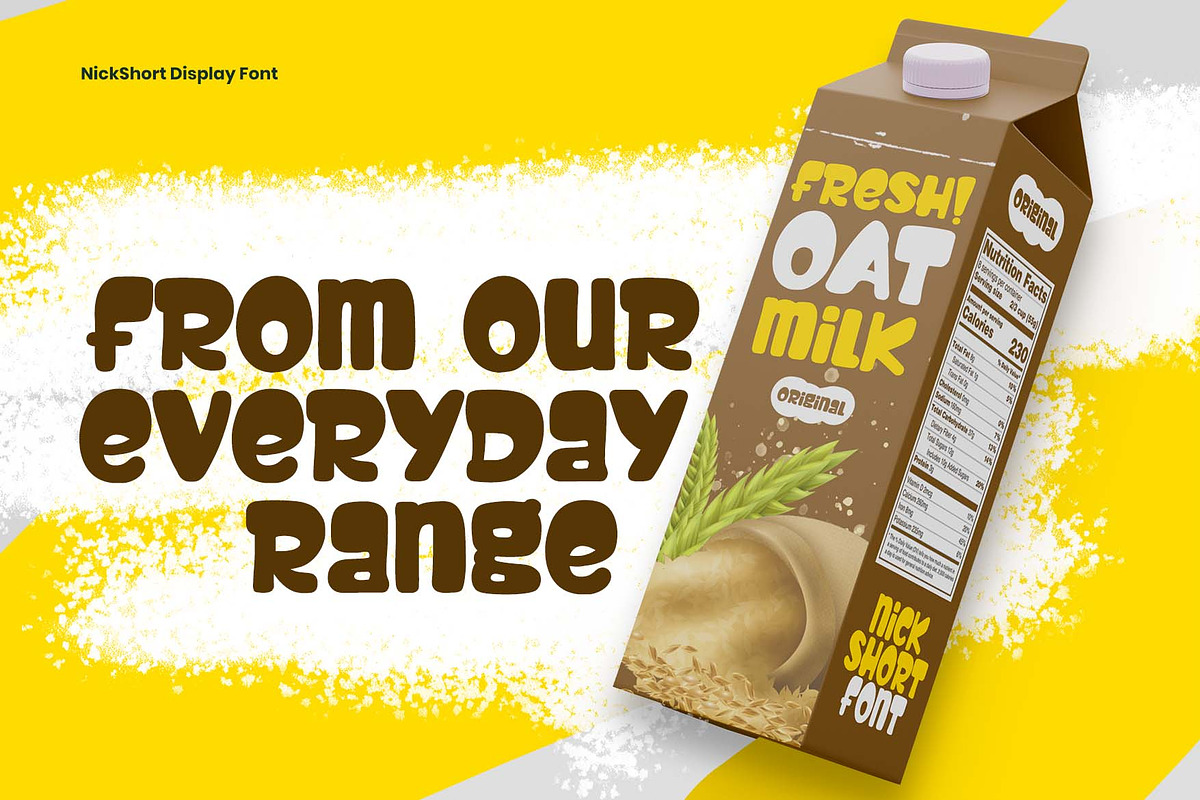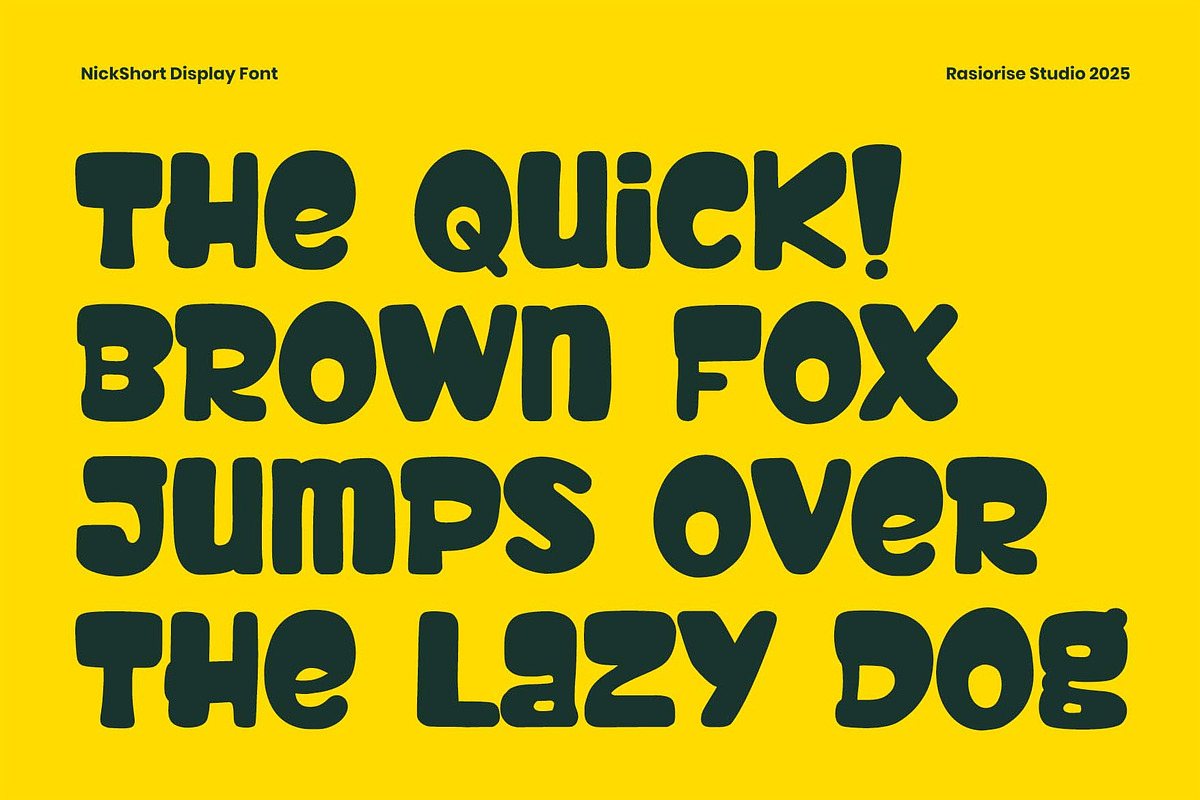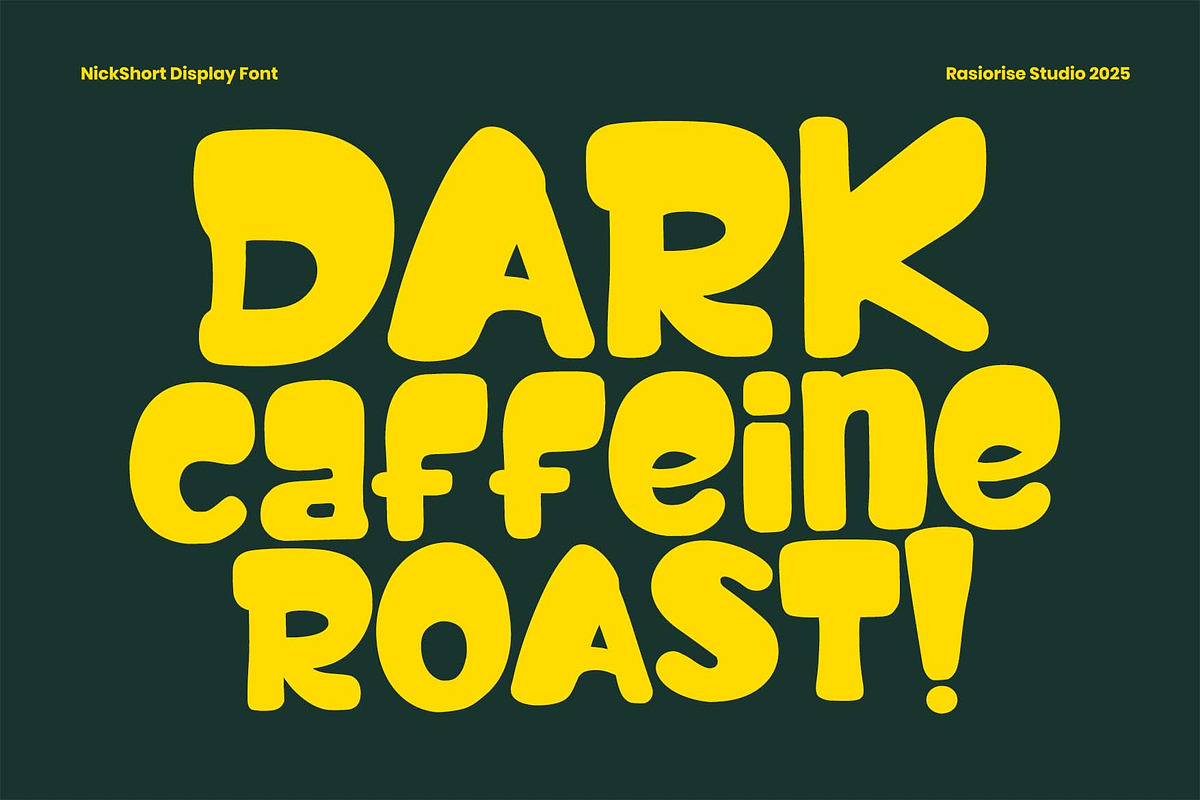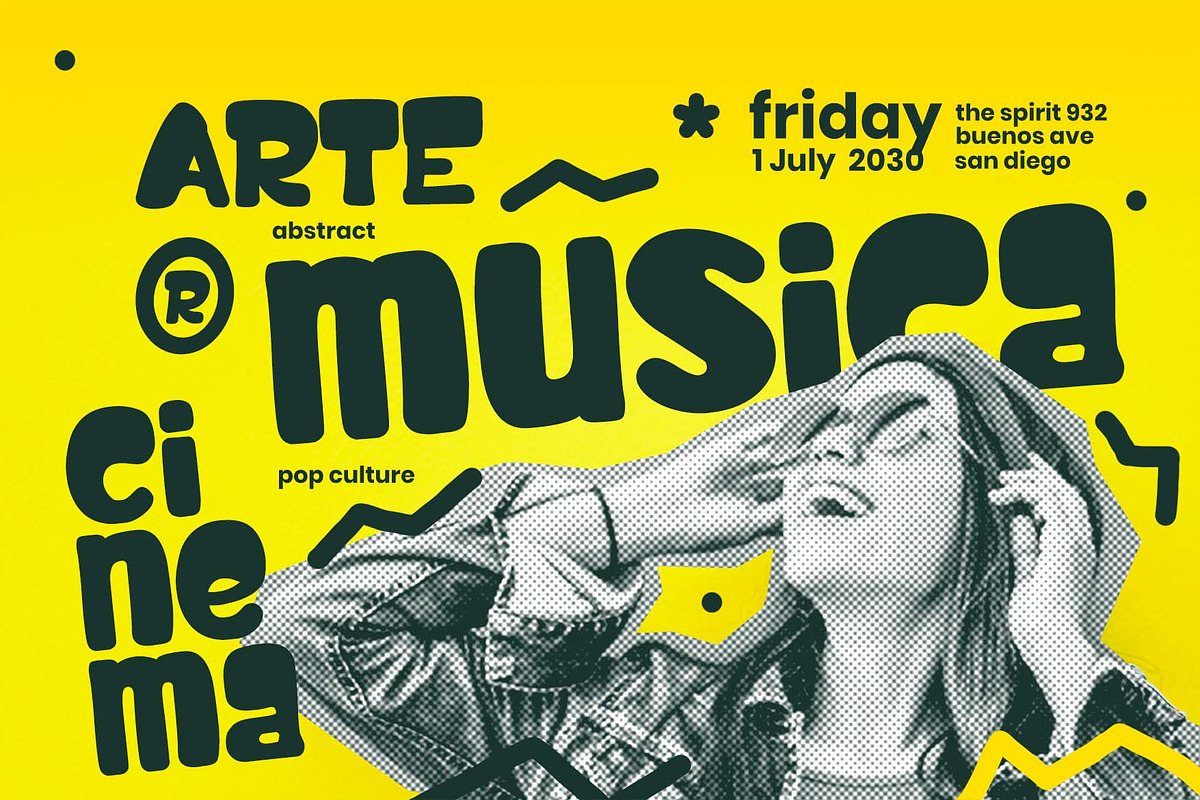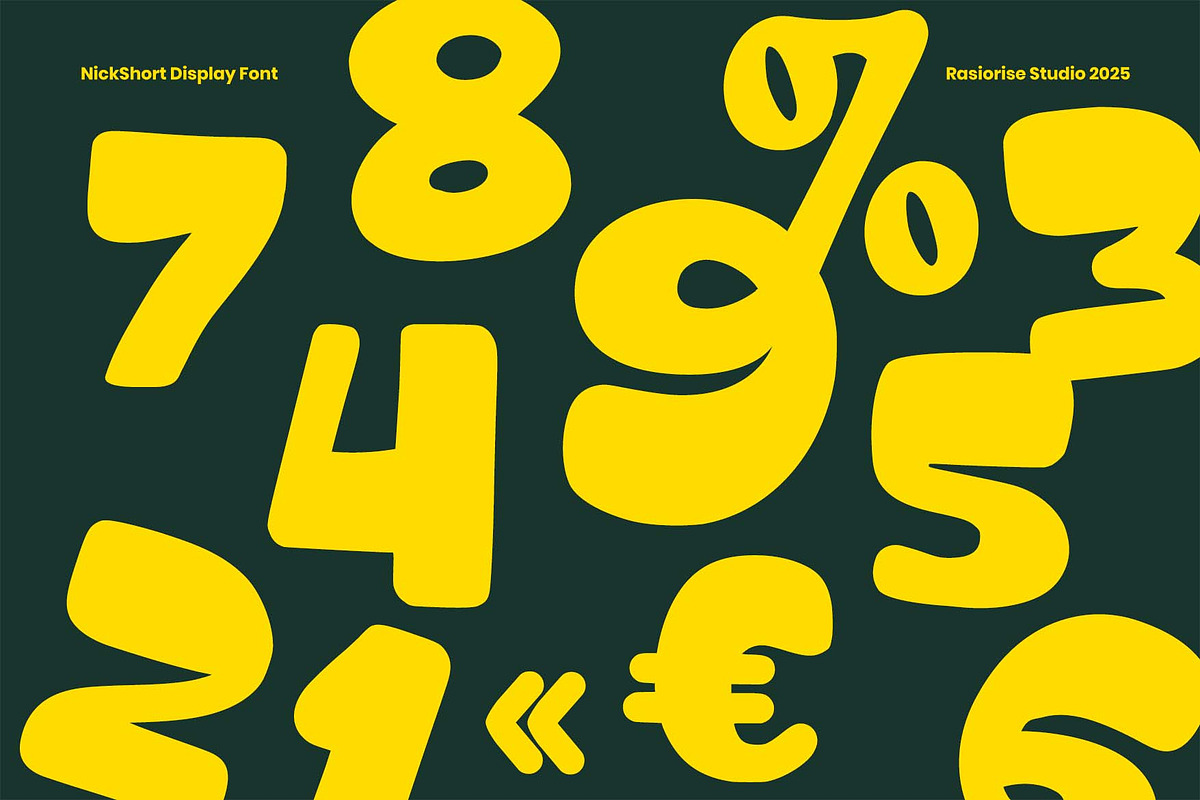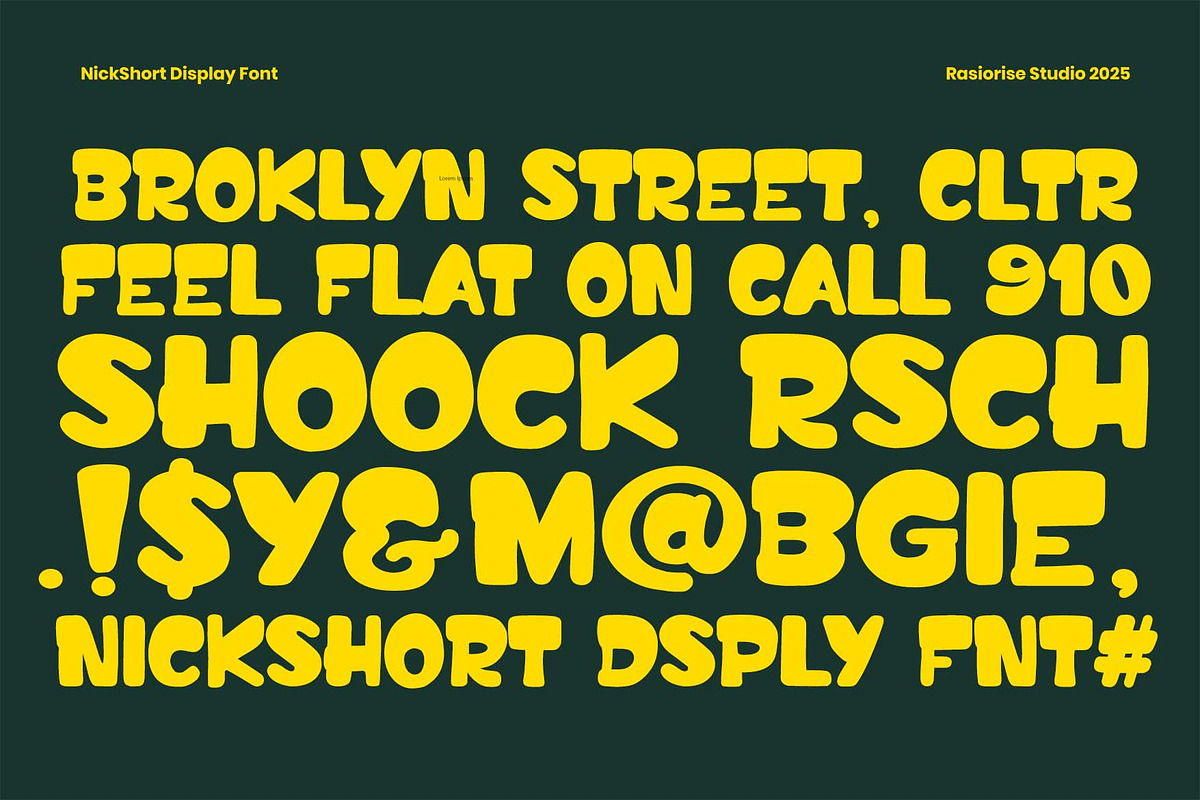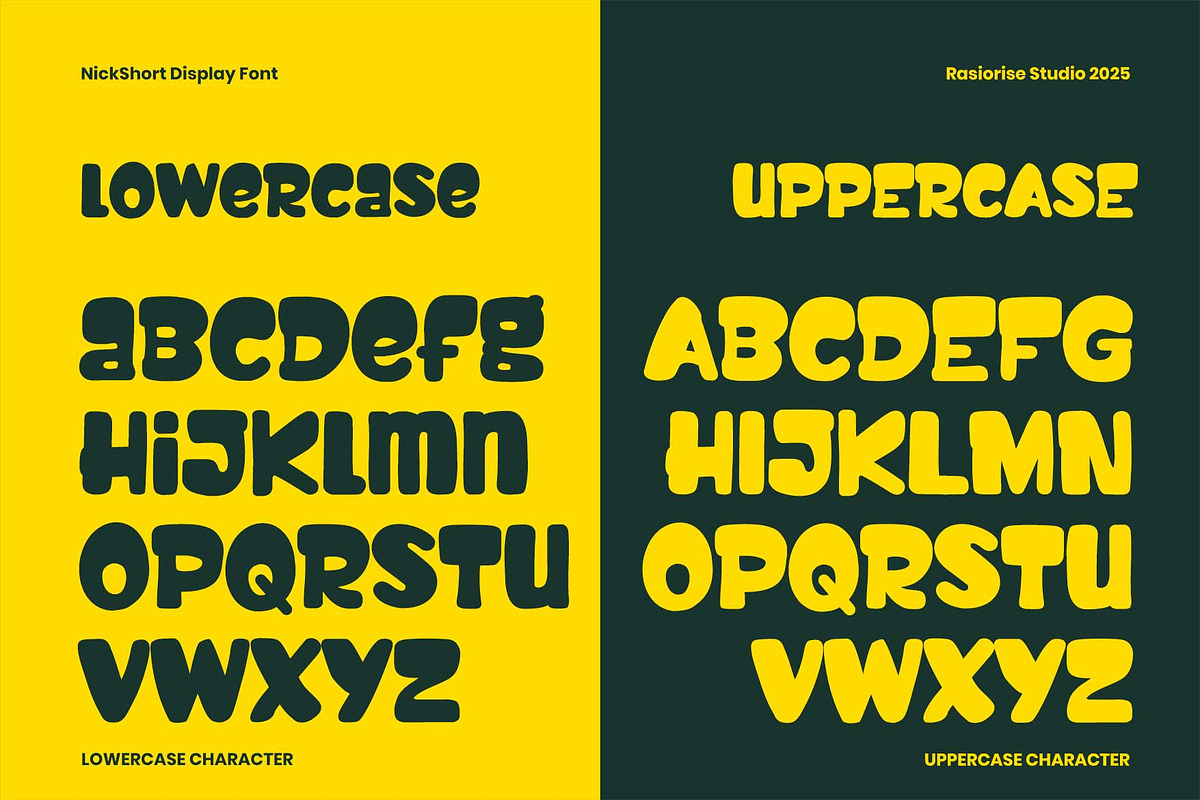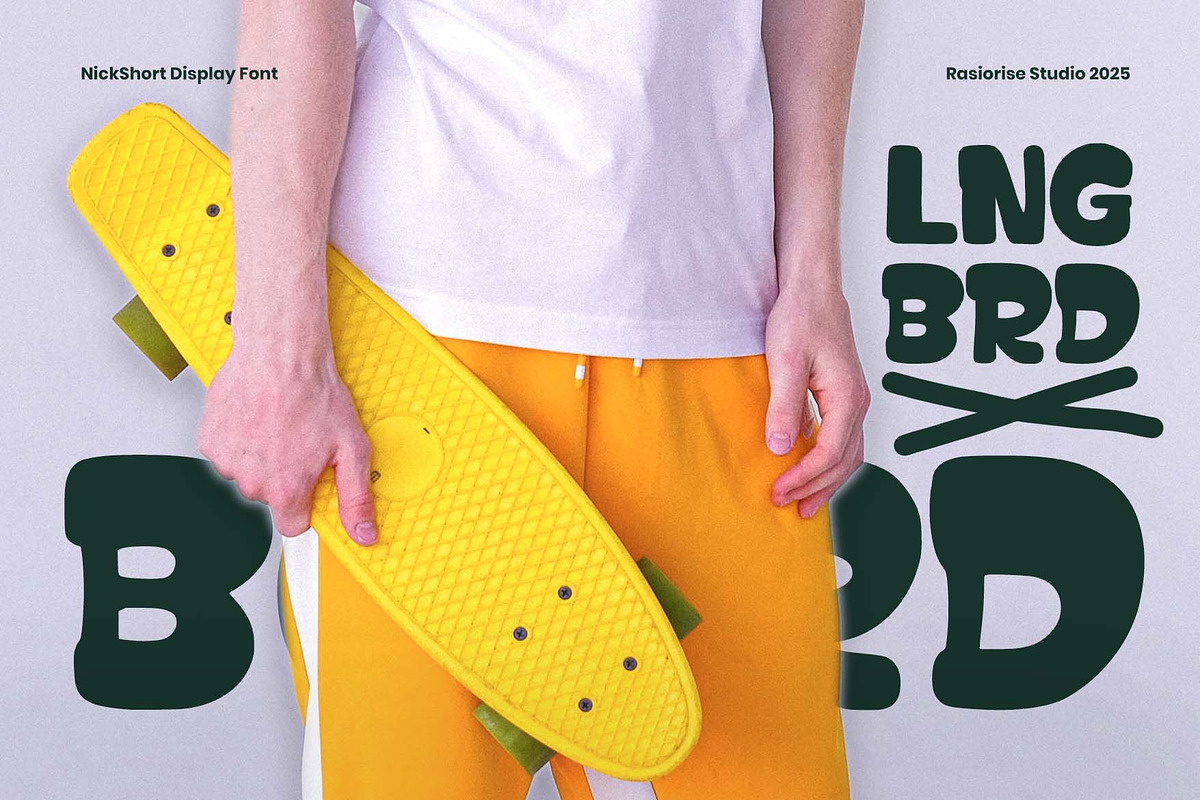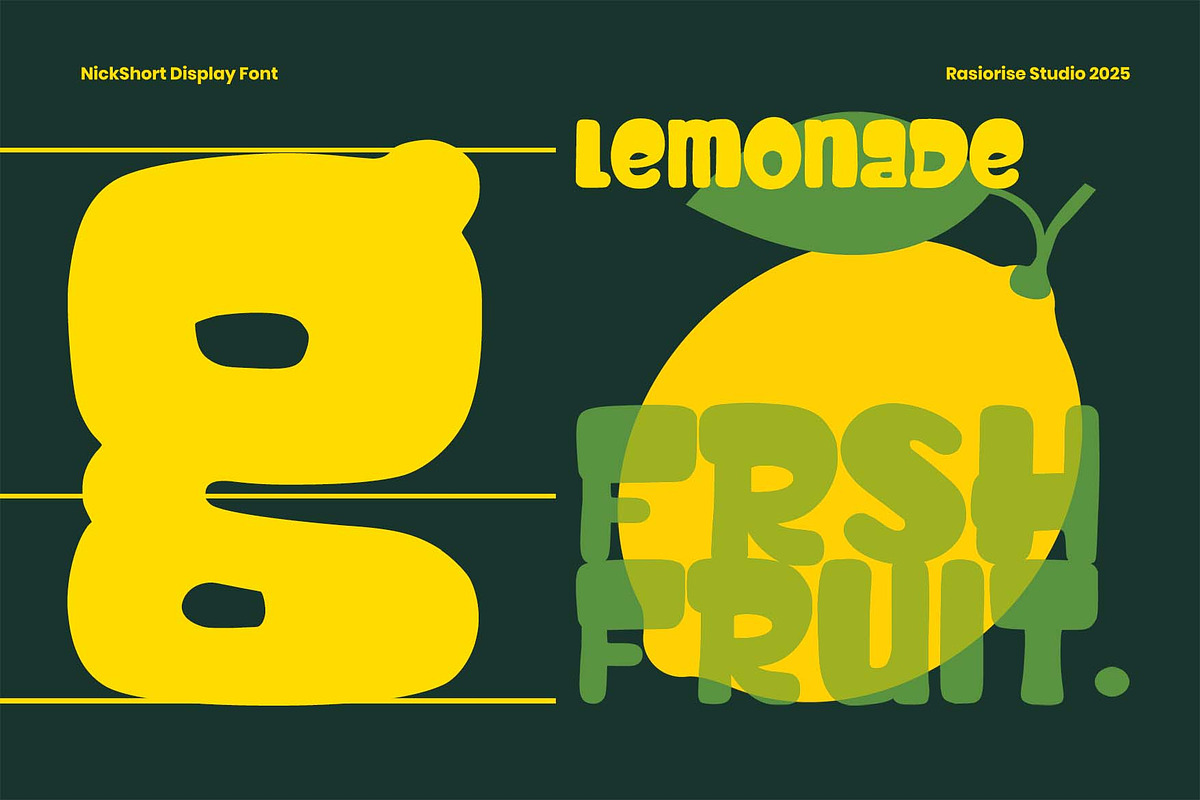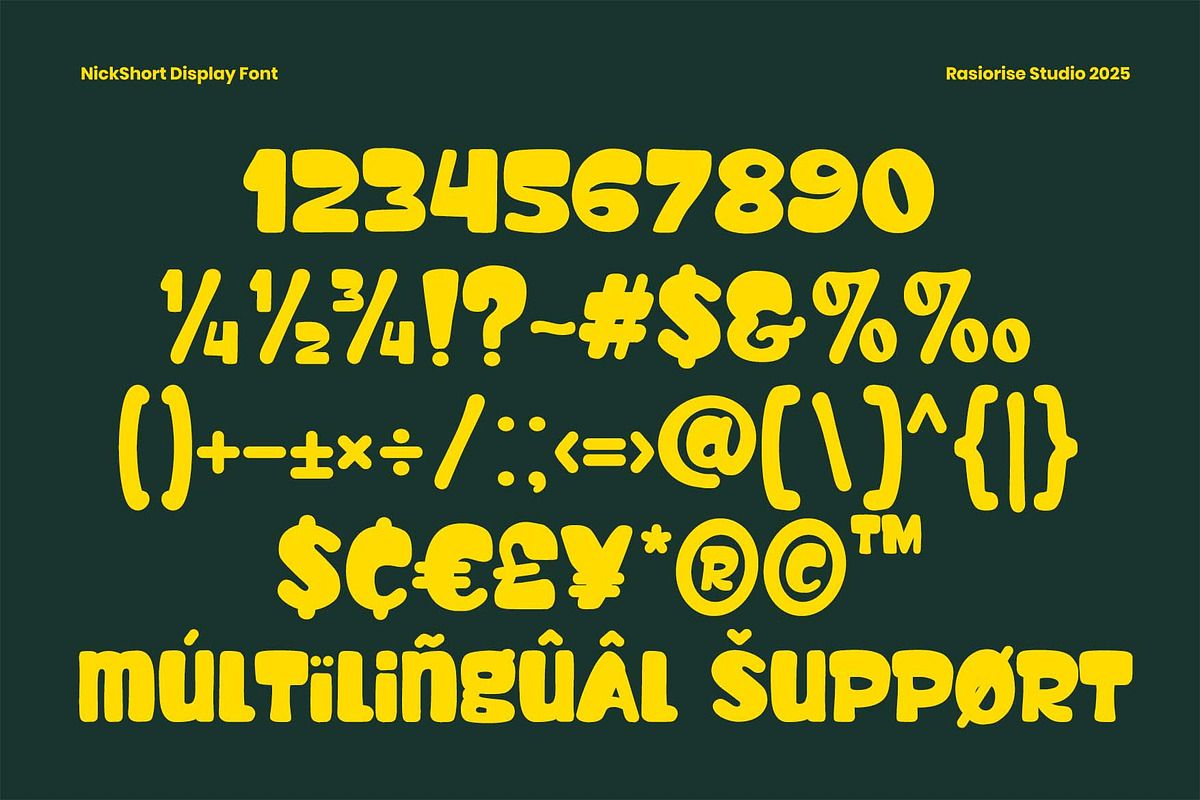
Nick Short a Display Font
Hello Everyone! Nick Short Font has been released for those of you who are looking for a Handwritten display font. A handwritten font that combines the freestyle urban/street rounded typeface. With easy-to-read character font for your project, also you can easily create beautiful and stand-out typography and Headline. Unleash your creativity with Nick Short font style!.
Nick Short Font very suitable for Logotype, Book Cover, Music Festival, Event Branding, Gretting Card, Poster, Merchandise, Label, Packaging Label and much more.